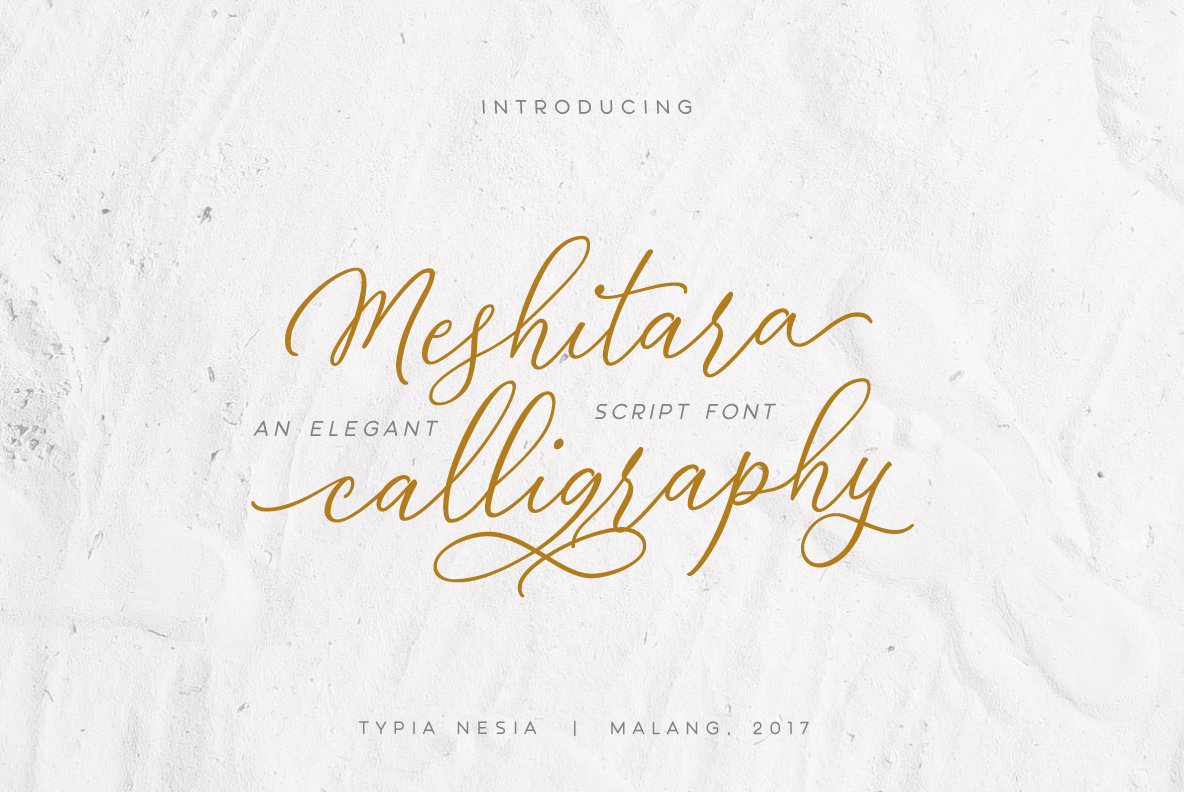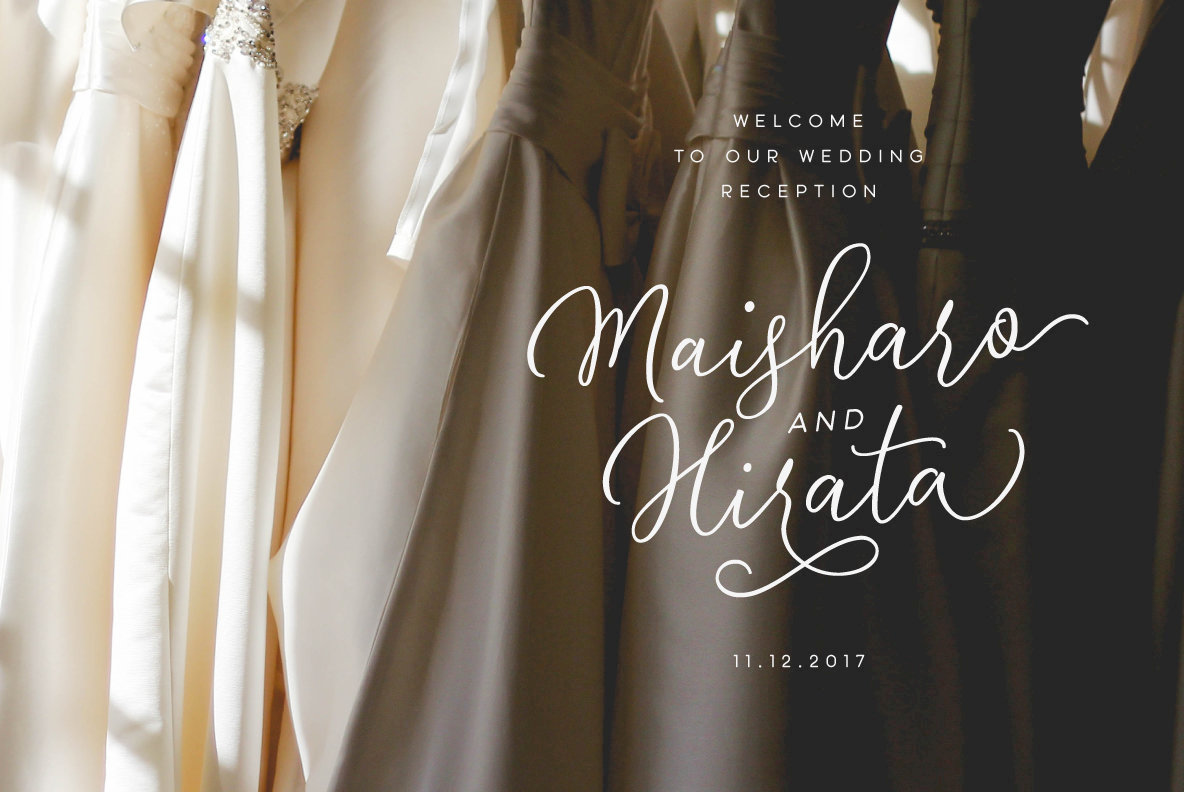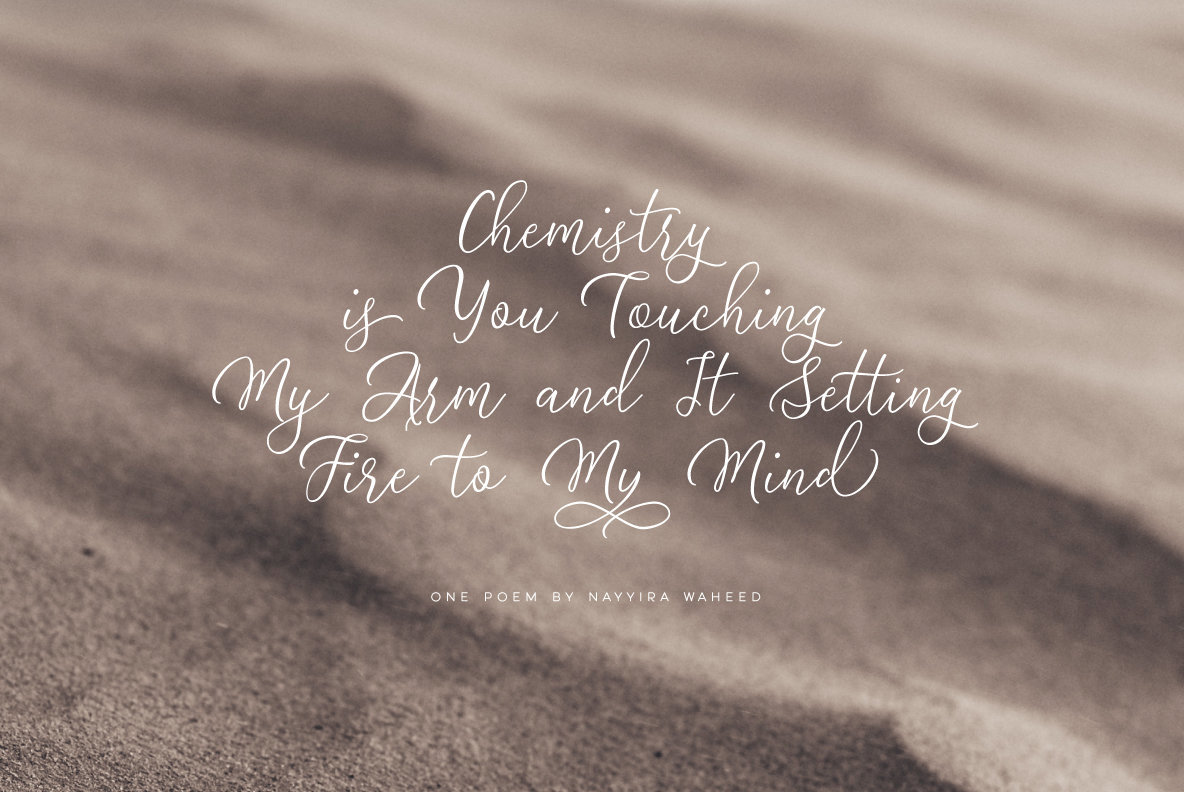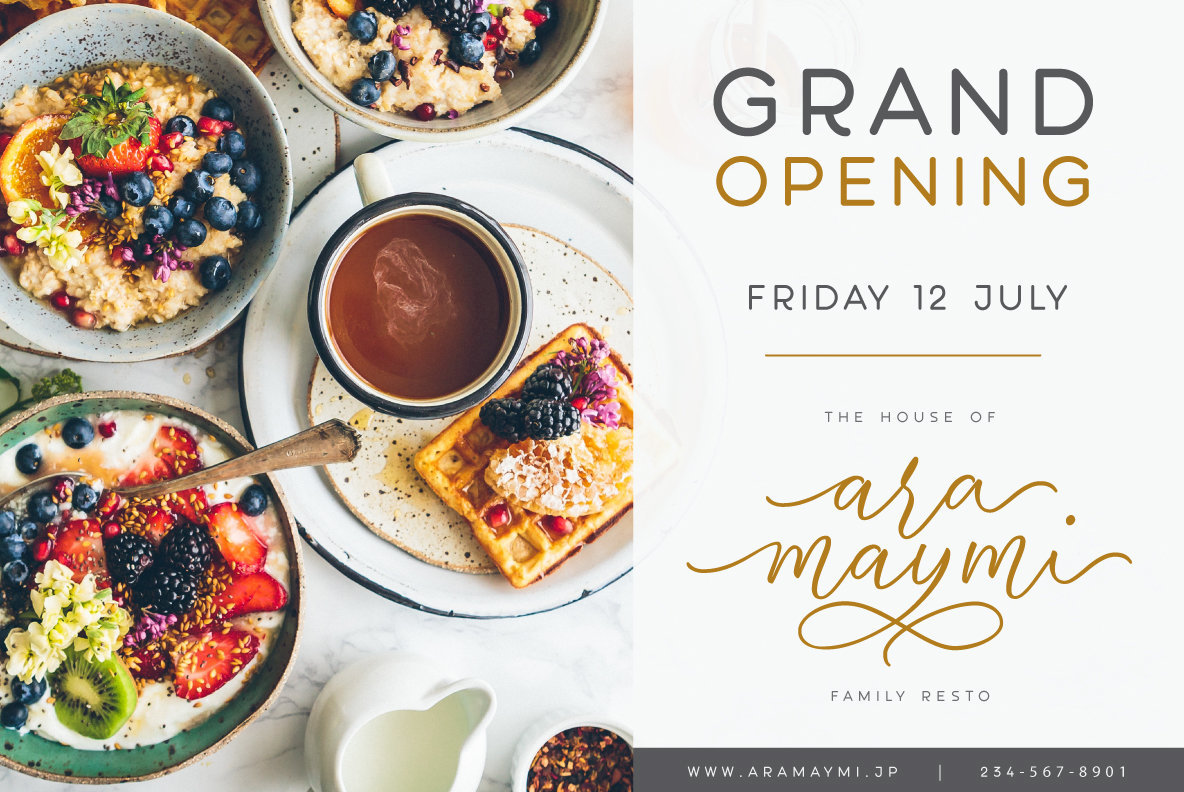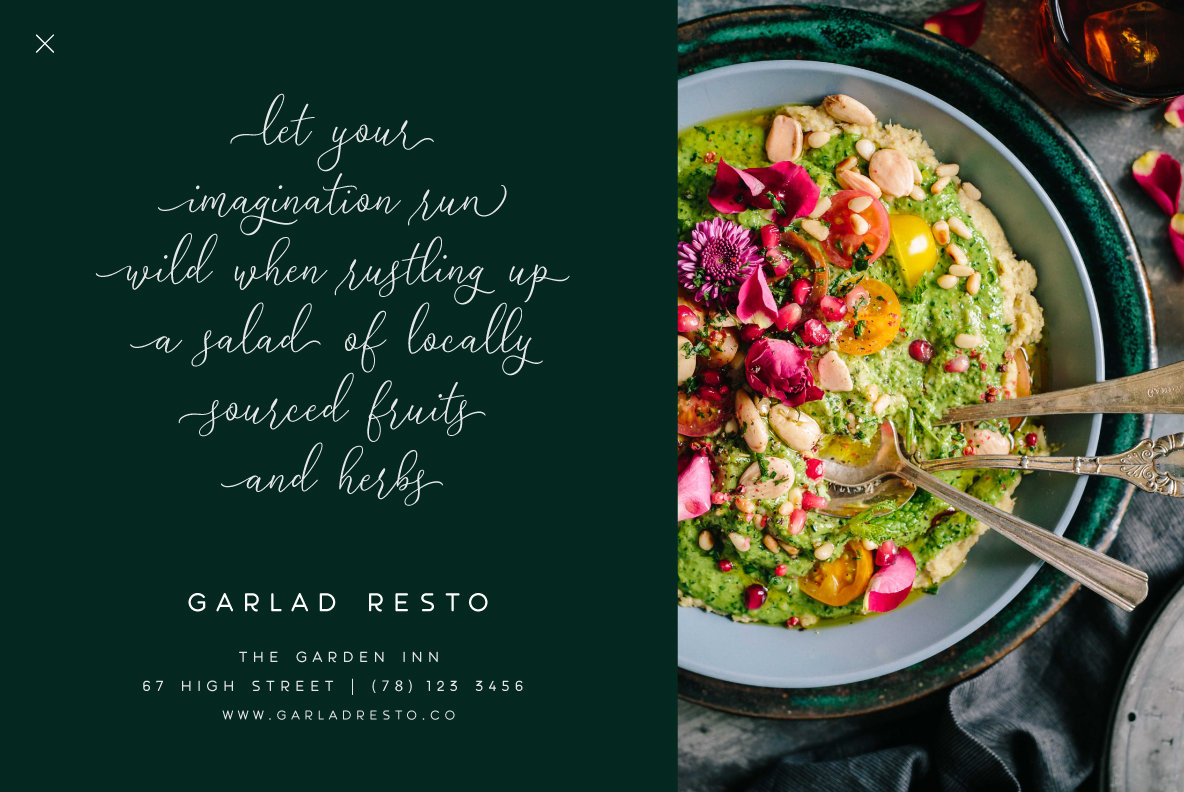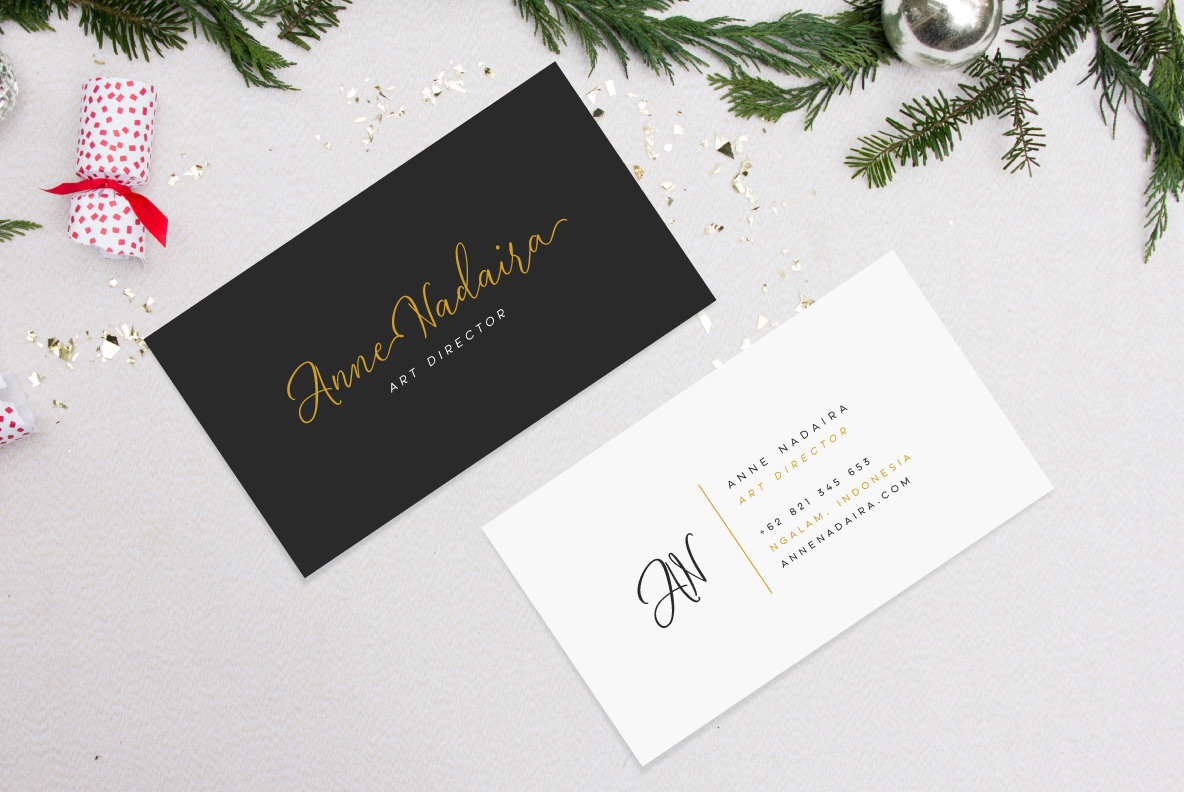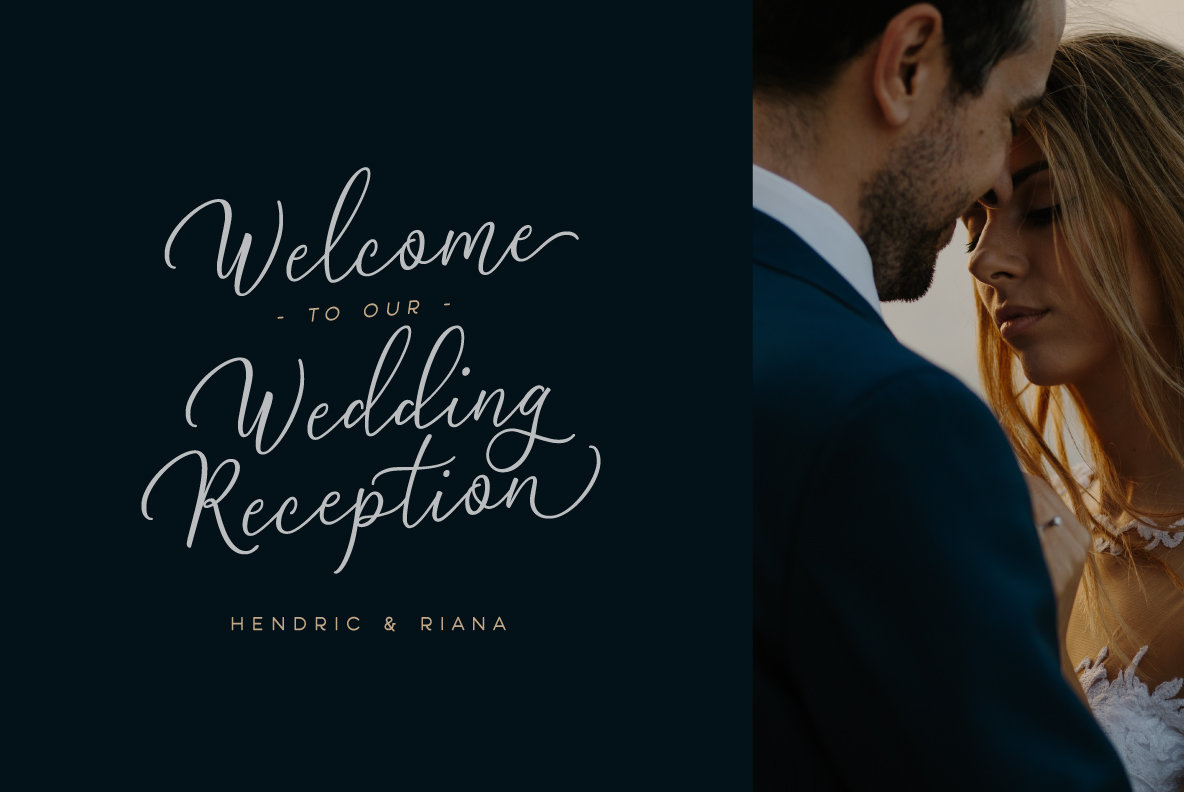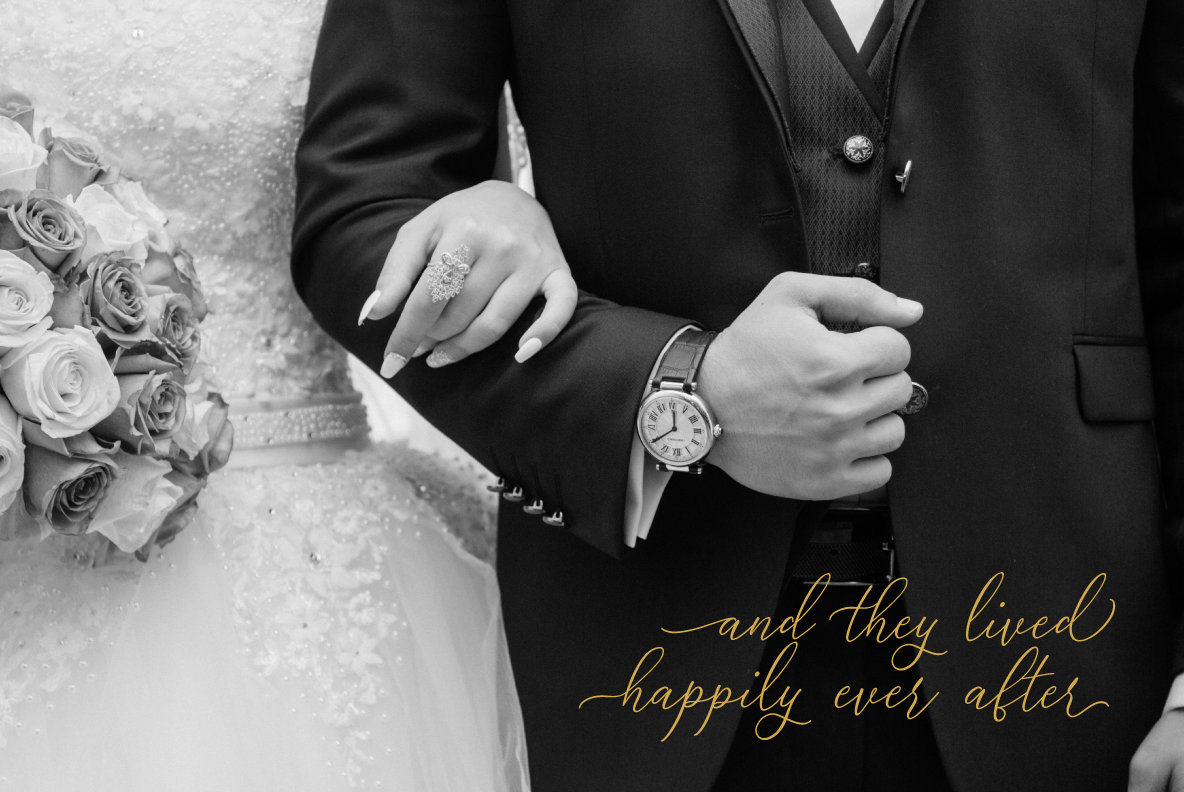
Meshitara Font
Meshitara
Meshitara Sans
Meshitara Italic
Meshitara Sans Italic
Infuse your design projects with the charm and elegance of Meshitara, a font duo blending modern calligraphy with clean allcaps aesthetics. Inspired by the allure of love poems and the serenity of nature, this font offers an elegant touch for various creative endeavors. Every character in Meshitara has been crafted to maintain simplicity, avoiding overuse of flourishes while capturing the essence of modern script. Perfect for projects requiring a touch of sophistication, Meshitara suits modern invitations, branding, stationery, blogs, advertising designs, art quotes, home decor, and special events. Embrace this elegant duo in your next design venture.Meshitara: Contemporary Calligraphy and Versatile Font Duo